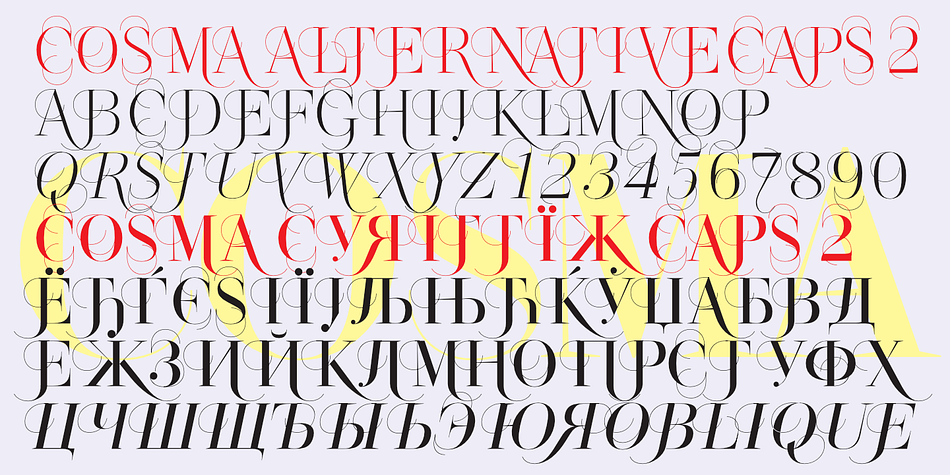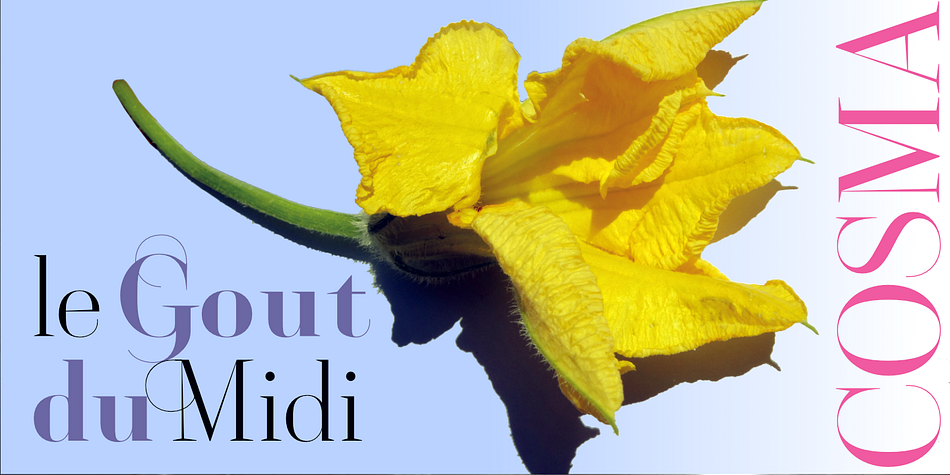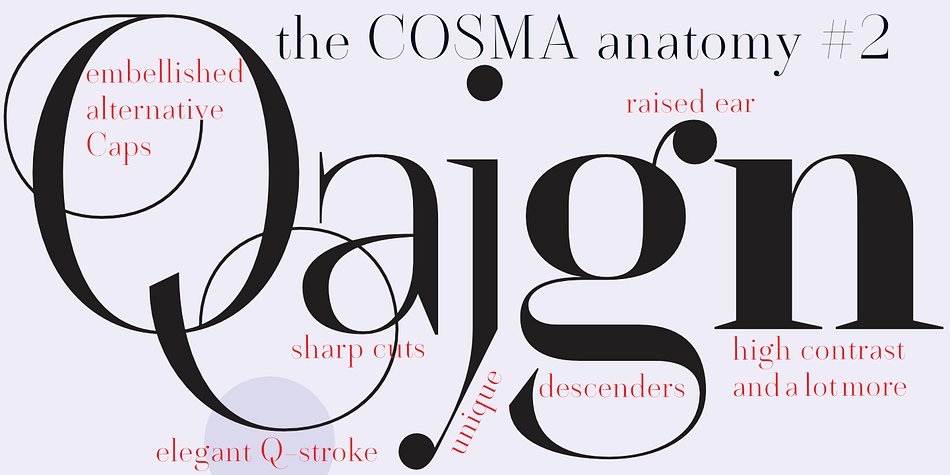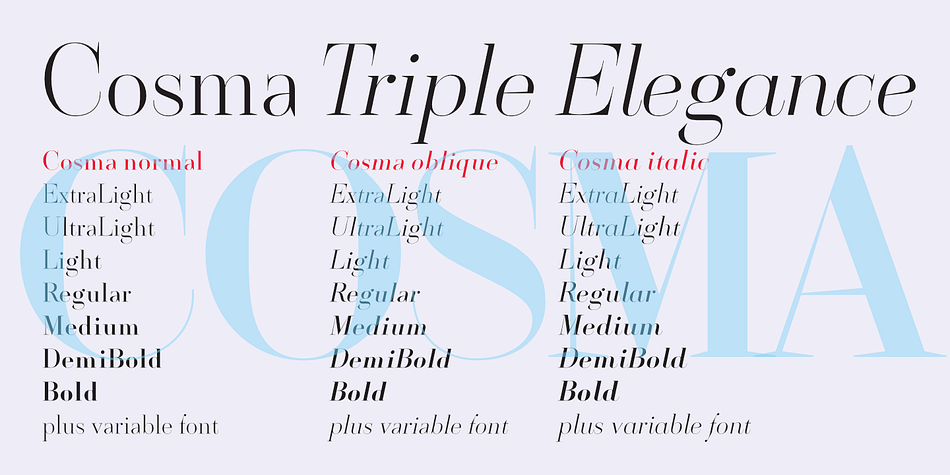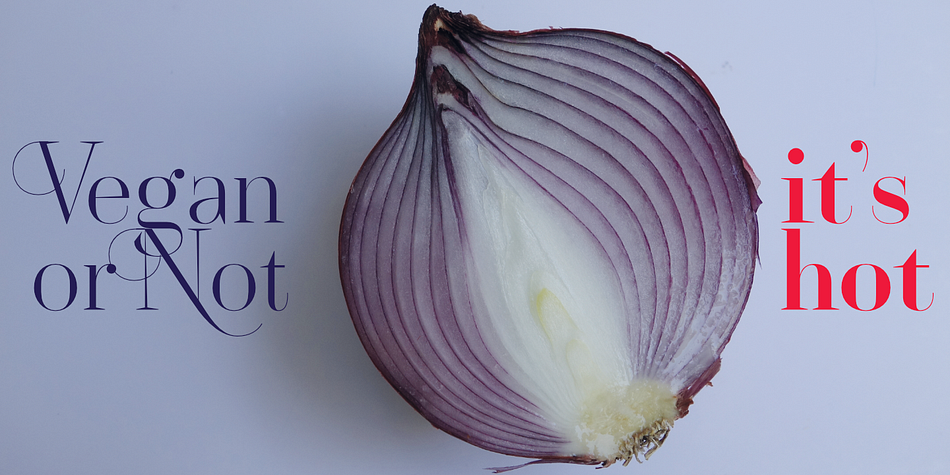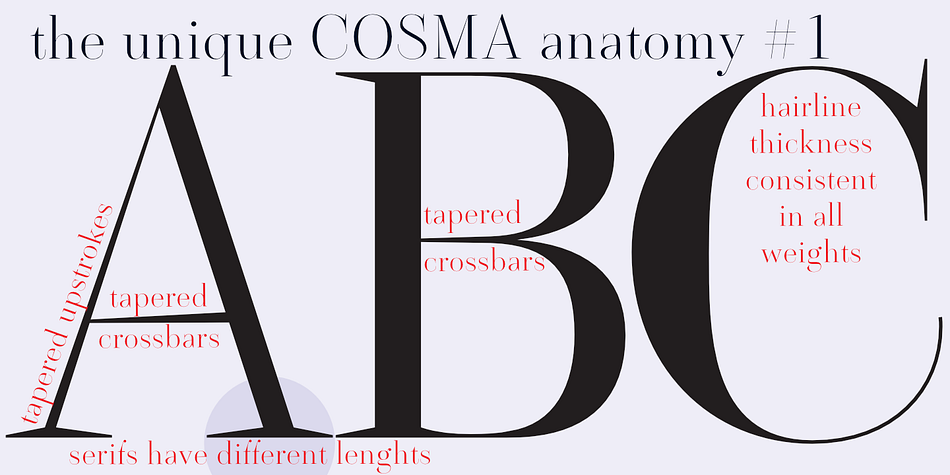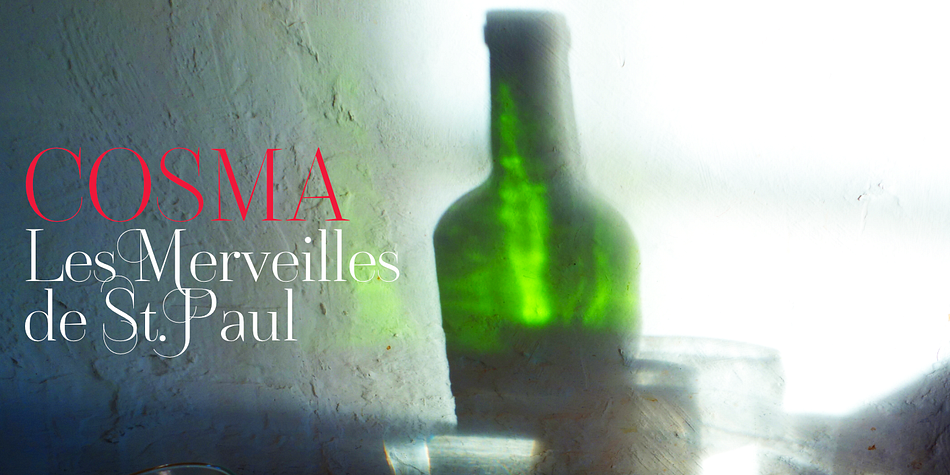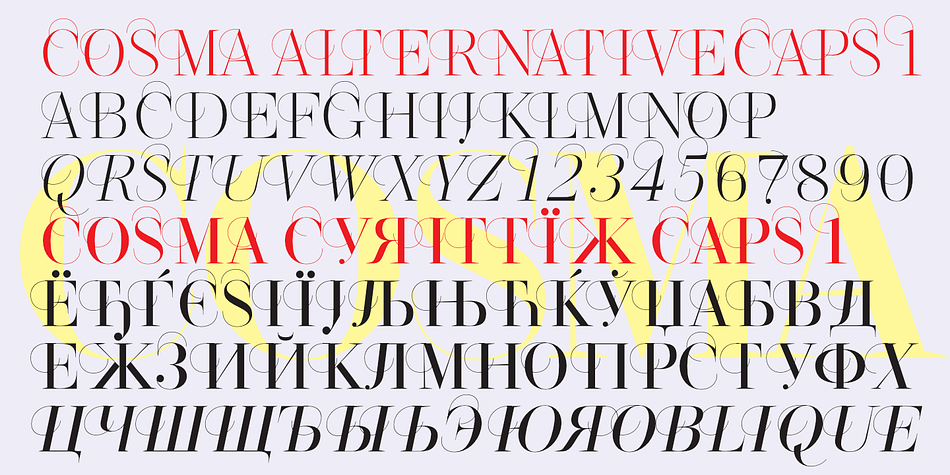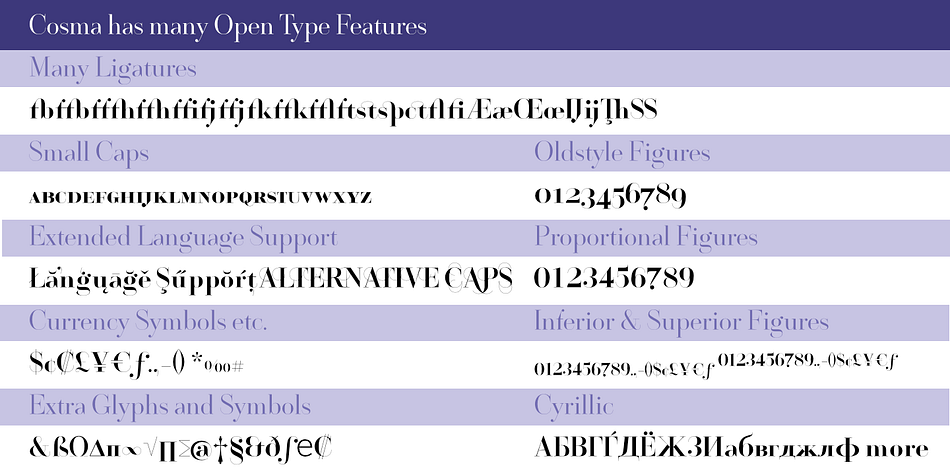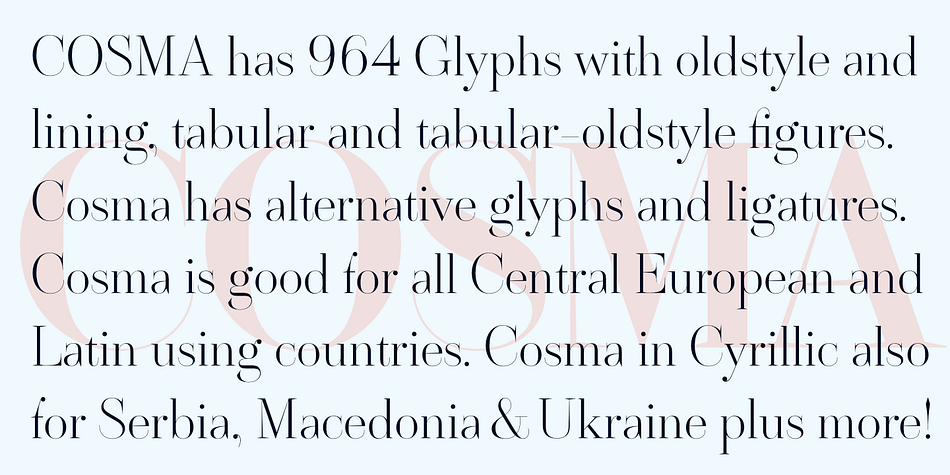
Designed by Gert Wiescher, Cosma is a serif font family. This typeface has forty-nine styles and was published by Wiescher-Design.
»COSMA« is an old greek word that stands for »beauty« and »order«, I thought it a very befitting name for my new font-family. My »Cosma« has that special high-contrast Renaissance beauty but is very orderly in appearance. »Cosma« is a classical beauty with modern touches that make it unique. You will love this font. It is a great everyday workhorse with seven weights from UltraLight to Bold and all the necessary weights in between. Great for body copy and headlines! With 964 Glyphs it is a truly European font designed for all Central European and Latin using countries. »Cosma« has a set of Cyrillic that is also good for Serbia, Macedonia and Ukraine. Sorry, no Greek! But it has oldstyle- and lining-, tabular- and tabular-oldstyle-figures, many alternative letters and ligatures. On top I designed two sets of alternative, decorated caps each in normal and oblique. »Cosma« comes in Normal, Italic and Oblique, sometimes you just don’t want to use Oblique instead of Italic that would be too playful for the occasion. »Cosma« doesn’t come cheap, but I start off with a reduction, so that is a good chance to get all 49 cuts for a phantastic price. Enjoy!